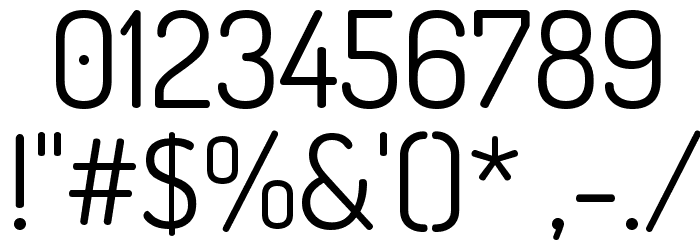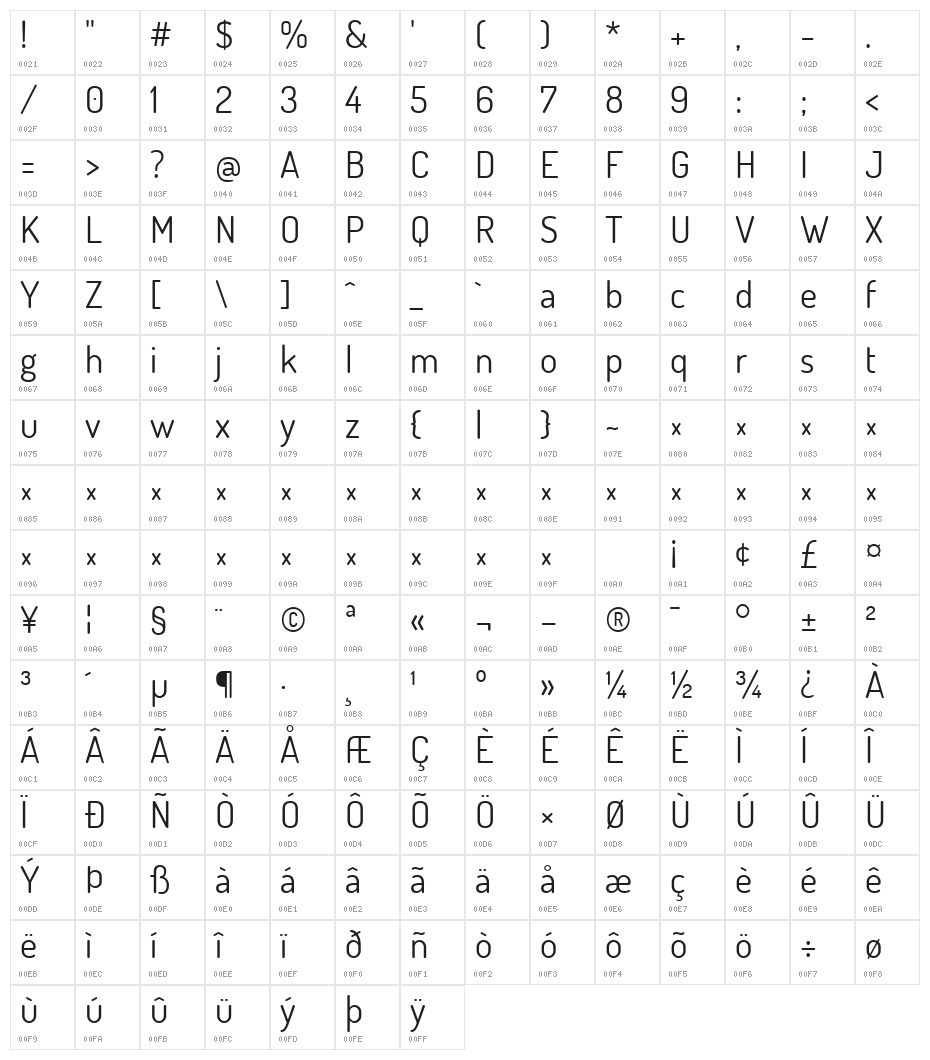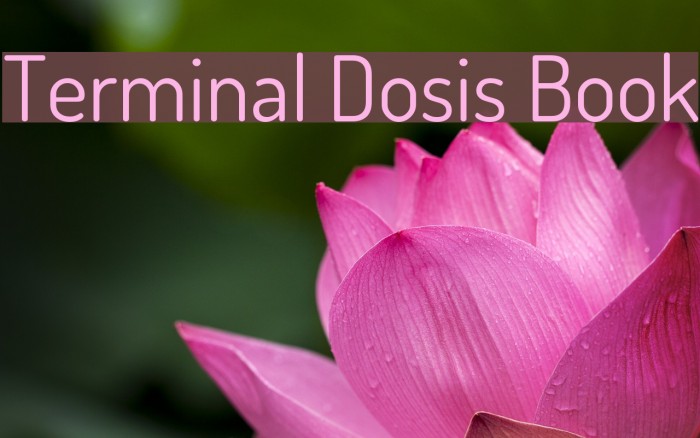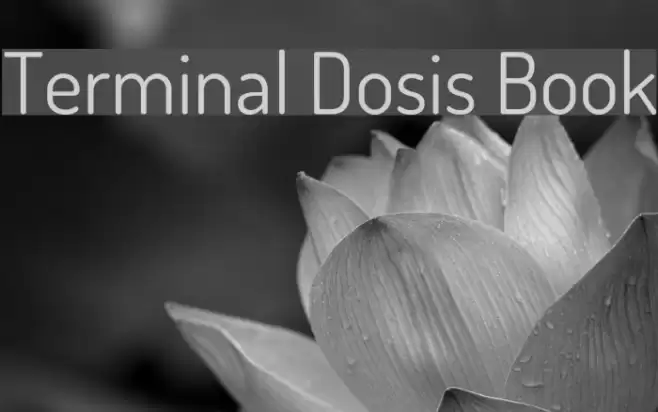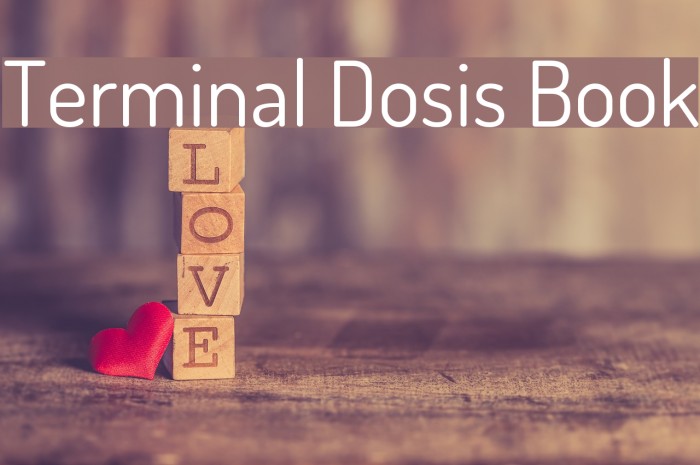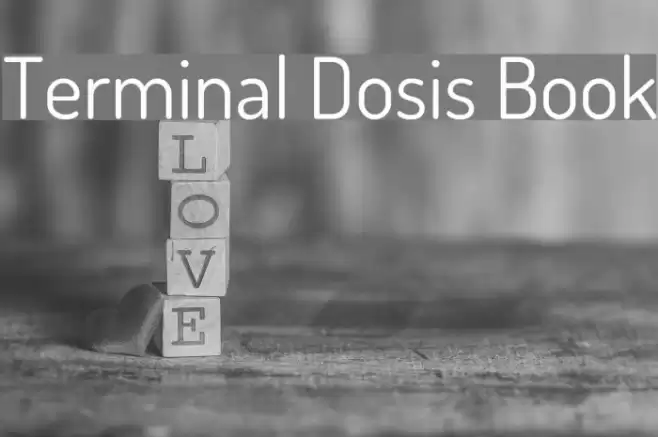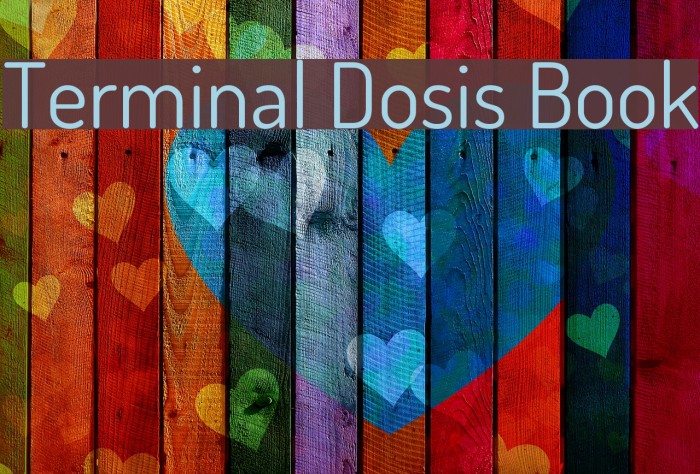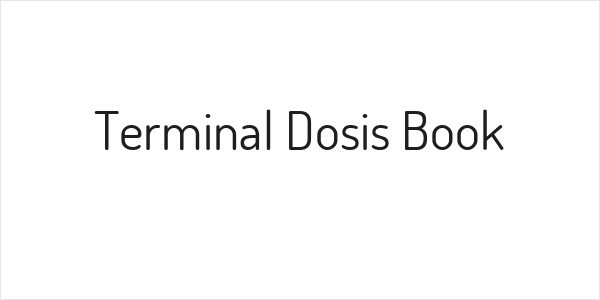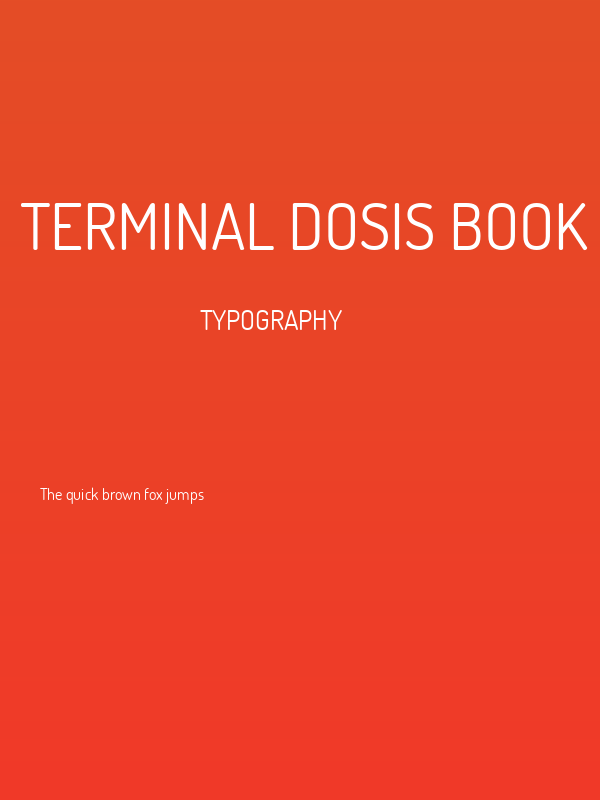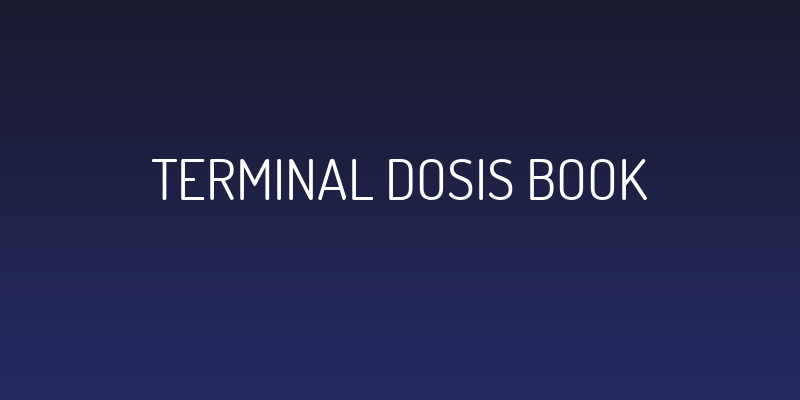
Terminal Dosis Book Font
Terminal Dosis Book Description
This font features a clean, modern design with rounded edges and a geometric structure. The characters are evenly spaced, providing a balanced and harmonious appearance. The uppercase letters are tall and slightly condensed, while the lowercase letters maintain a consistent height, contributing to a uniform look. The numerals are clear and legible, matching the overall style of the alphabet. Special characters are designed with the same attention to detail, ensuring they integrate seamlessly with the rest of the font. This typeface is versatile, suitable for both digital and print media, and works well in various sizes due to its clarity and simplicity.